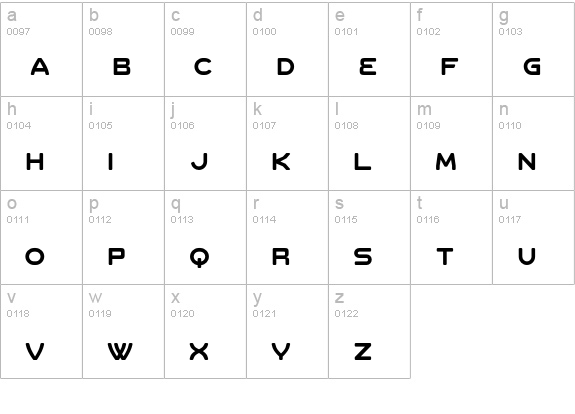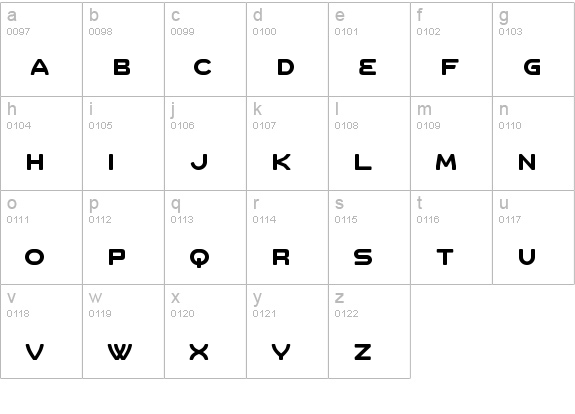
Standard-Regular is the standard, neutral variant in the Standard typeface family \xE2\x80\x94 well suited to general body text, paragraphs, and standard typographic work.
Standard-Regular is a versatile and timeless font that is sure to enhance any design project. With its clean and simple lines, this font exudes a sense of professionalism and elegance. It is the perfect choice for a wide range of applications, including branding, advertising, and editorial design. Designed with precision and attention to detail, Standard-Regular offers impeccable legibility in both small and large sizes. Its balanced letterforms and consistent stroke widths ensure optimal readability across various mediums. One of the standout features of Standard-Regular is its wide character set, which includes uppercase and lowercase letters, numerals, punctuation marks, and special characters. This comprehensive range makes it suitable for multilingual projects and allows for creative typographic compositions. One of the best things about Standard-Regular is that it is free to download at FontsMarket.com. This means that you can easily access and use this font for personal and commercial projects without any cost. Its availability on FontsMarket.com ensures a hassle-free and convenient experience for designers and typographers. Whether you are working on a professional branding project or simply looking to enhance your personal designs, Standard-Regular is a reliable and stylish choice. Its timeless appeal and versatility make it a go-to font for designers across various industries. Download Standard-Regular for free at FontsMarket.com and elevate your designs with this exceptional typeface.